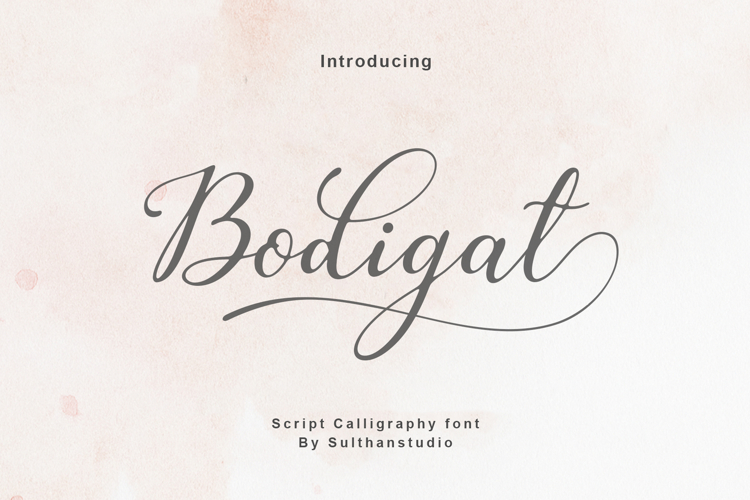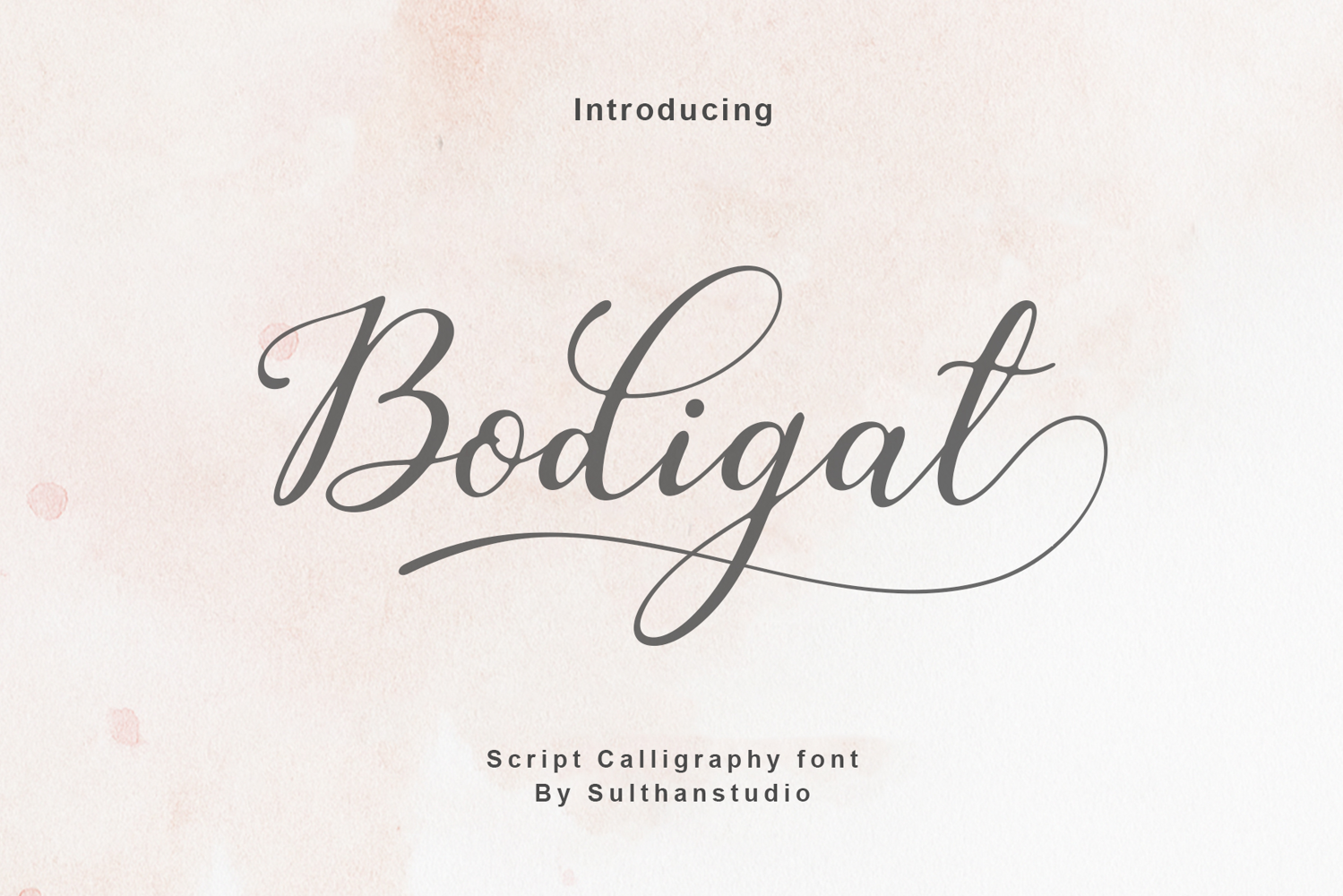
Introduce a touch of dazzling elegance into your designs with Bodigat, a modern script font. Exuding sophistication through graceful curves and handcrafted details, Bodigat is the secret ingredient in creating stunning wedding invitations, prominent branding, captivating logos, stylish packaging, and captivating media content. Designed to captivate, Bodigat enhances the appeal of any project it takes part in.